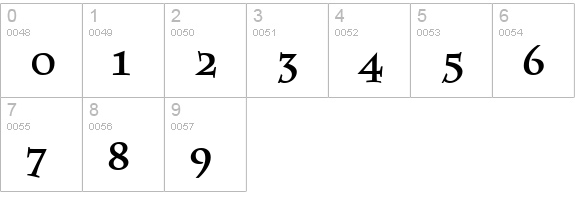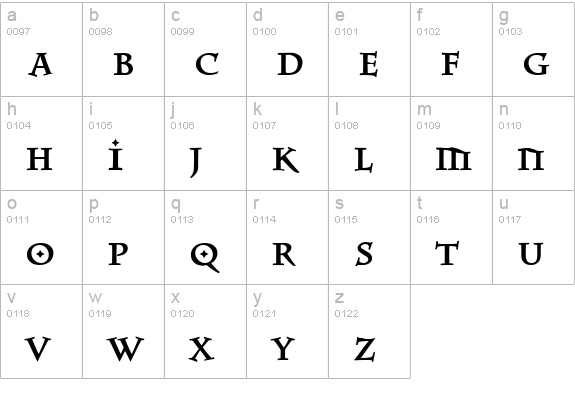
EquipeMedium Font Details
EquipeMedium is a versatile and stylish font that strikes the perfect balance between modernity and sophistication. Its medium weight conveys a sense of professionalism while also exuding a touch of creativity. The clean lines and subtle curves of EquipeMedium make it suitable for a wide range of design projects, from branding to editorial work. What sets EquipeMedium apart is that it is available for free download at FontsMarket.com. This means that you can easily access this high-quality font without having to worry about any costs. Whether you are a seasoned designer looking to expand your font collection or a newcomer to the design world, EquipeMedium offers a fantastic opportunity to enhance your projects with its elegant aesthetic. With its timeless appeal and easy accessibility, EquipeMedium is a must-have font for anyone looking to elevate their design work. Download it for free today and see how it can bring a touch of sophistication to your next project.